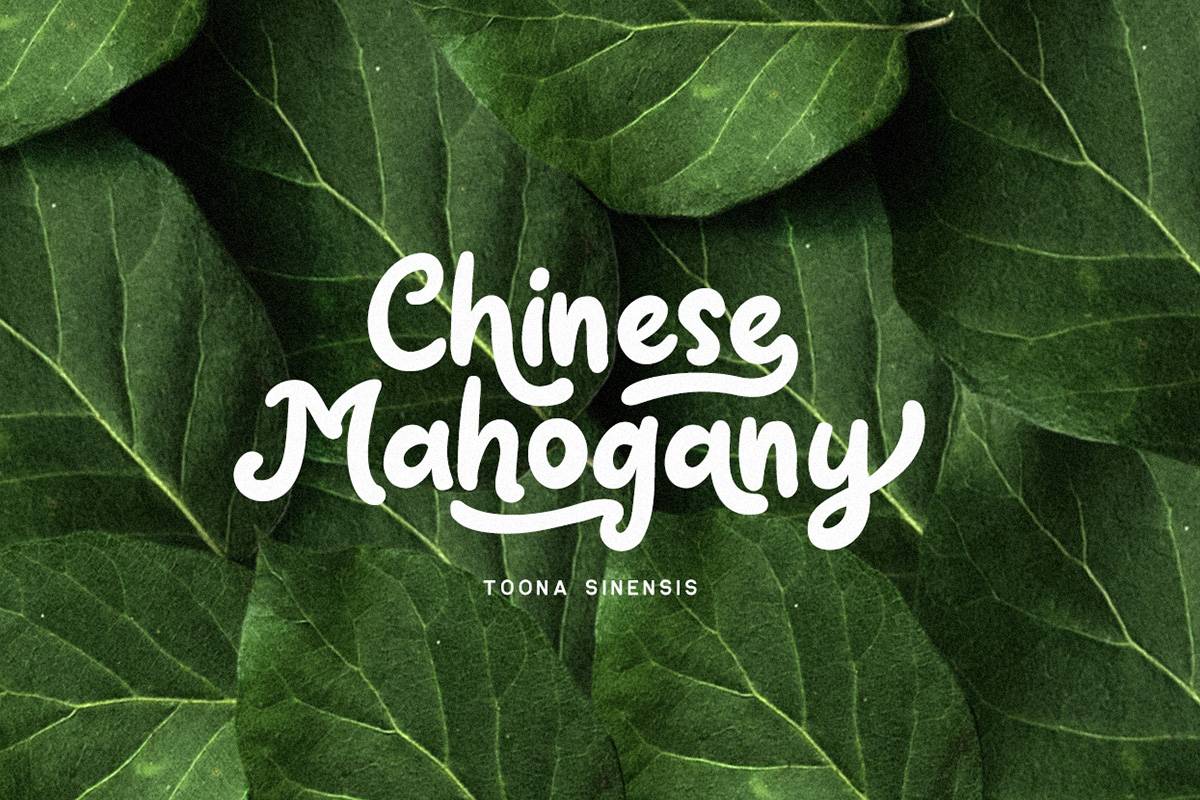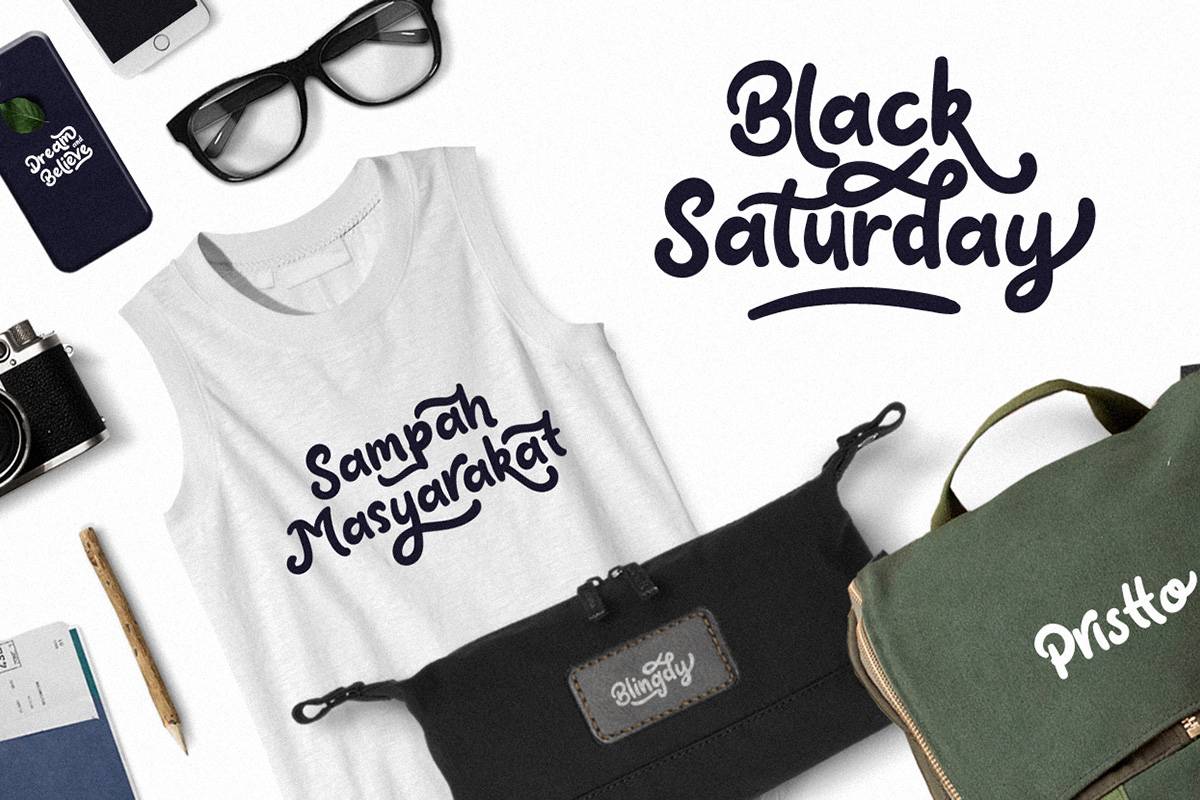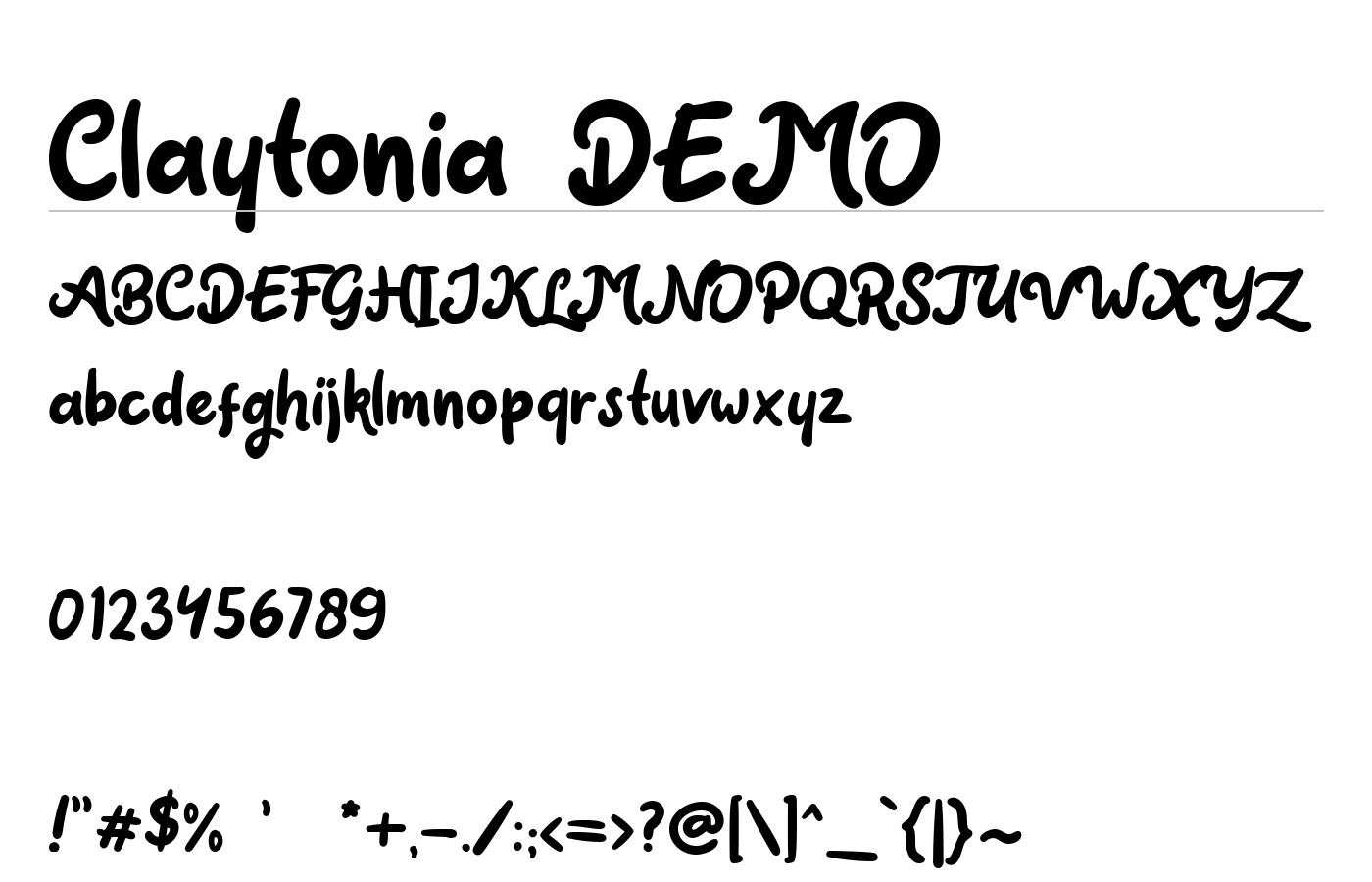
Claytonia is a playful and informal script font that combines friendly, rounded letterforms with smooth, flowing strokes, giving it an approachable and casual feel. Its moderate weight and consistent stroke width make it highly legible, perfect for creative projects and branding that seek a warm, handcrafted touch. This font works well in headings, invitations, and packaging where a personal and cheerful tone is desired.
Claytonia Font
About Claytonia Font
| Font family | Claytonia Font |